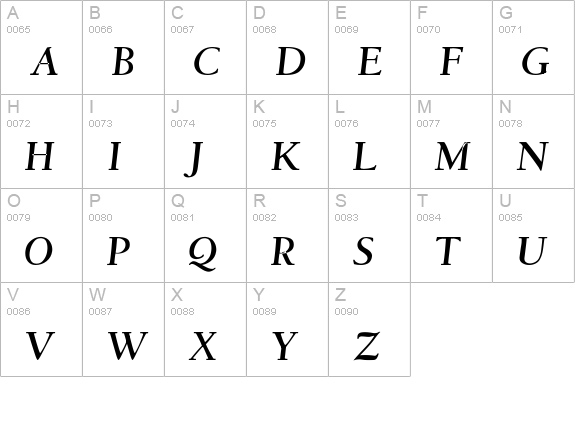
Heatherville Font Details
Heatherville font is a stunning and versatile typeface that is sure to make a statement in any design. With its elegant and sophisticated letterforms, this font is perfect for adding a touch of class to logos, branding materials, invitations, and more. What sets Heatherville font apart is not just its beauty, but also its accessibility. It is freely available to download at FontsMarket.com, making it a great choice for designers on a budget or anyone looking to add a touch of elegance to their projects without breaking the bank. The unique and intricate details of Heatherville font will captivate your audience and leave a lasting impression. Each letter is meticulously crafted to ensure legibility and readability, while still maintaining a sense of artistic flair. Whether you're designing for print or digital, Heatherville font will effortlessly elevate your designs. Its timeless appeal makes it suitable for a wide range of applications, from elegant wedding invitations to high-end fashion branding. With its generous availability and exquisite design, Heatherville font is a must-have for designers and creatives alike. Download it for free at FontsMarket.com and let your imagination run wild with the endless possibilities that this stunning font offers.